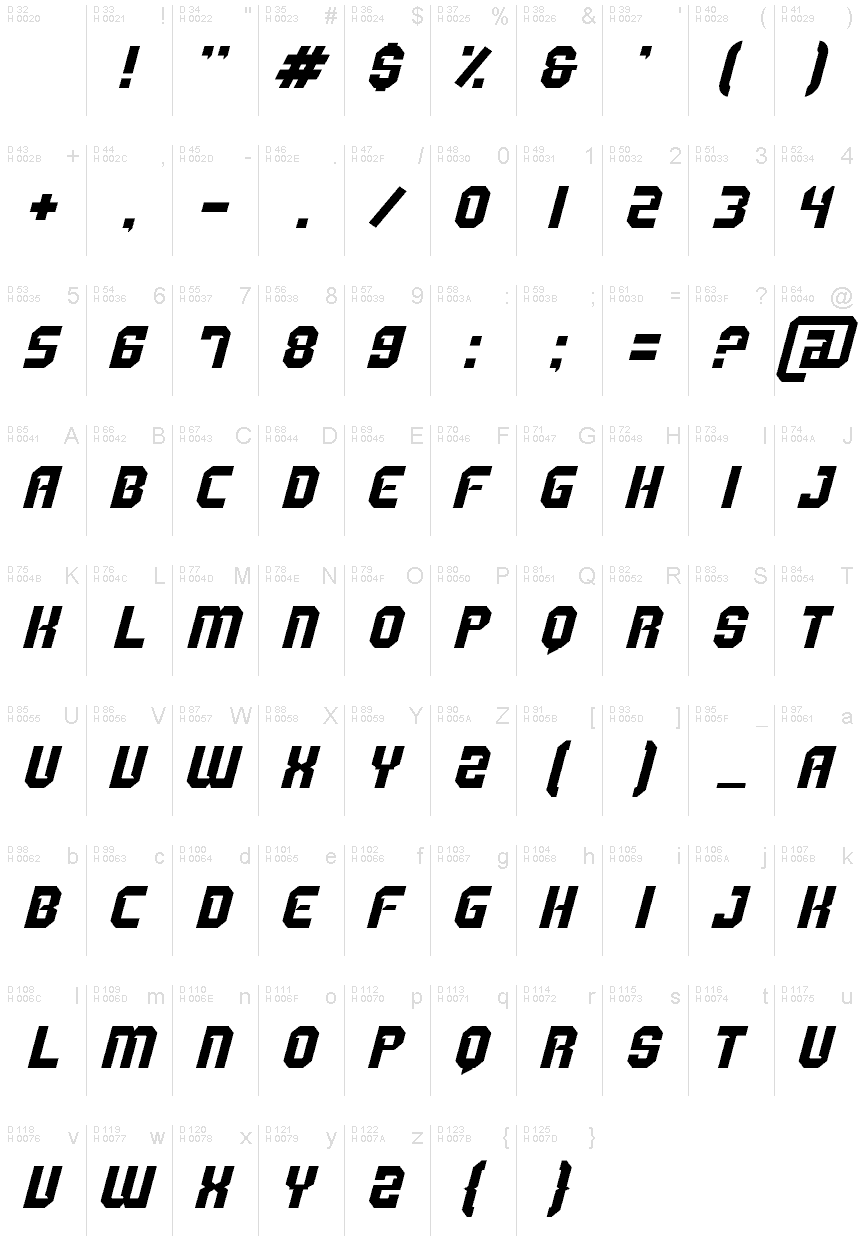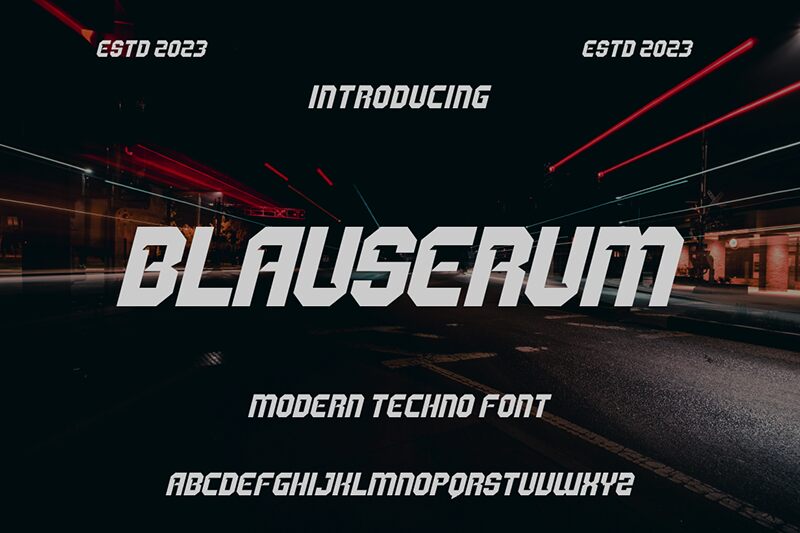
BLAUSERUM Italic
Blauserum is a futuristic condensed font created by Gilang Ternadho.
The sharp corners give it a bold presence making it the perfect tool for designers seeking a contemporary visual effect. This free tool is presented in TTF file format and can be used in posters, online banners, websites, branding and packaging designs, apparel items, labels, and all kinds of print media.
Blauserum offers a bold and clean presentation of upper case characters which is reflected in its unique italic design, with a variety of letters that feature sharp edges for a futuristic feel.